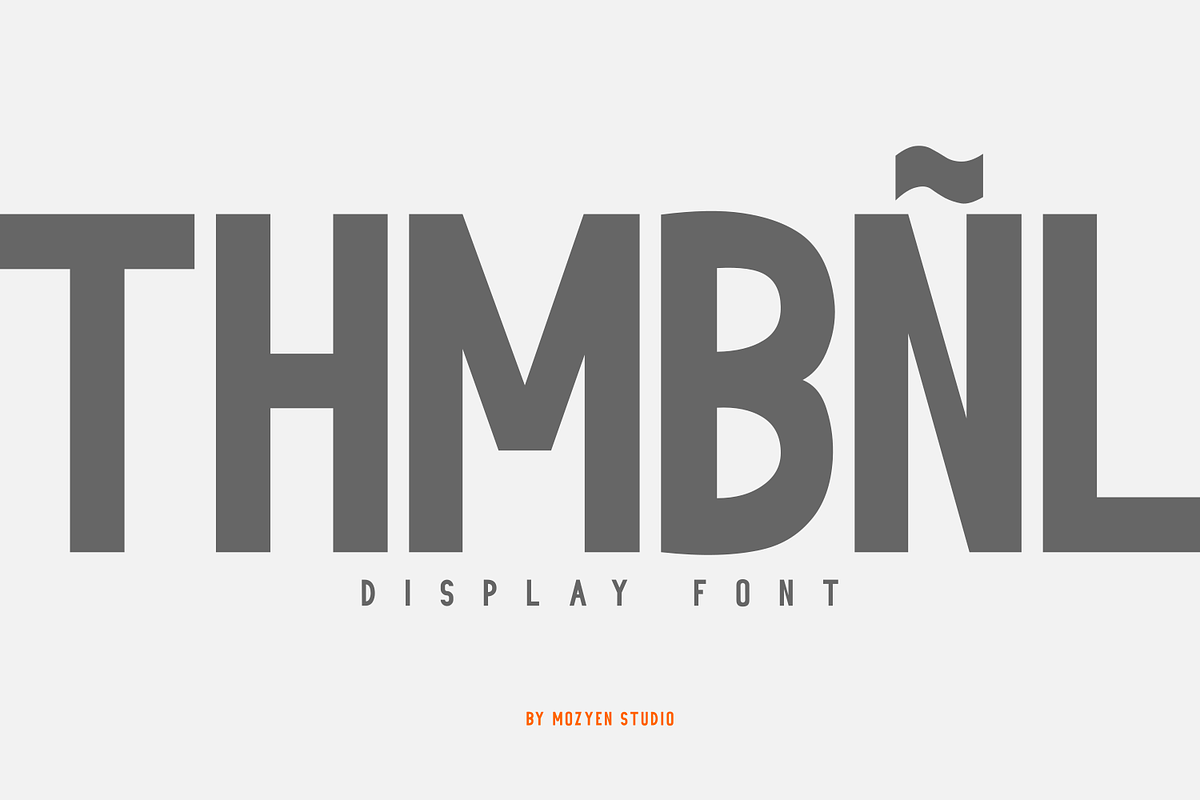
THMBNL Font Free Download is a bold, modern display typeface designed for maximum visual impact—especially in digital formats like video thumbnails, social media headers, posters, and eye-catching advertisements. With its thick strokes, sharp angles, and attention-grabbing character shapes, THMBNL is perfect for creators, streamers, and designers who want to make their content pop at first glance.
Built to stand out even at small sizes, THMBNL ensures your message is readable and loud, whether on YouTube, Twitch, or any visual-heavy platform. It’s also great for merchandise, event flyers, and edgy branding projects.